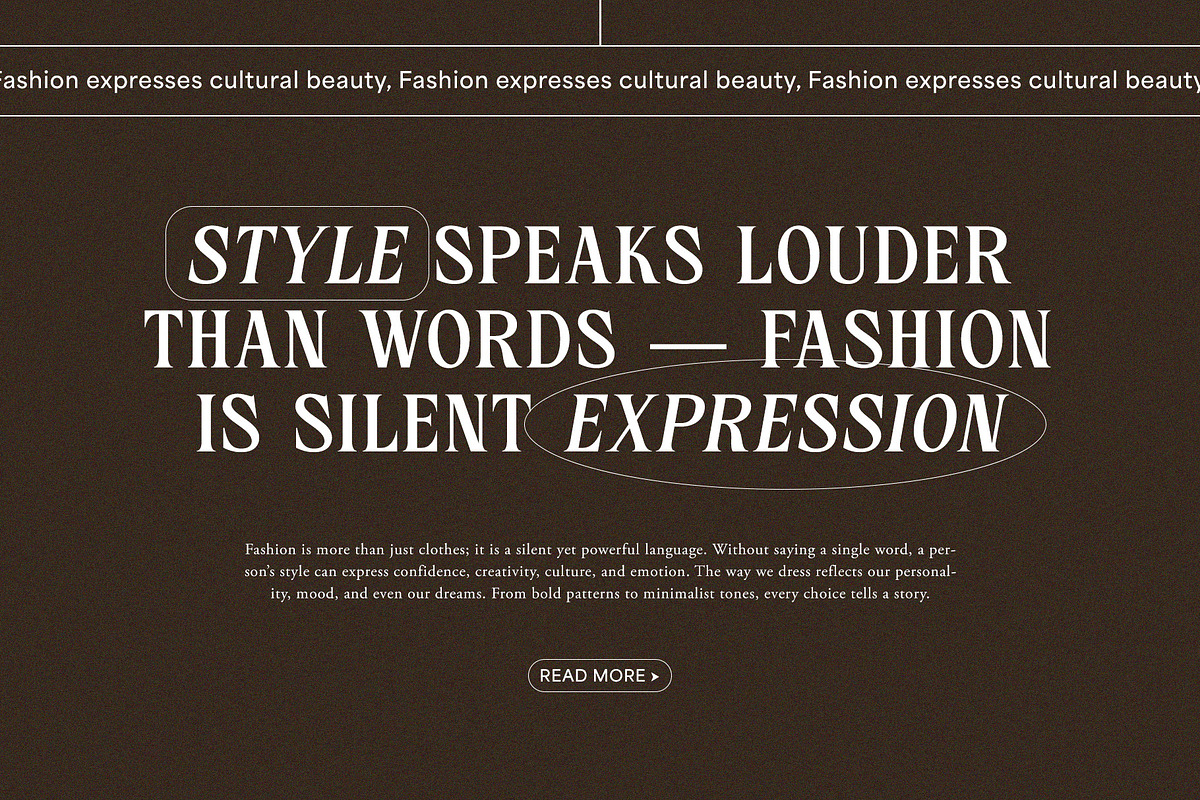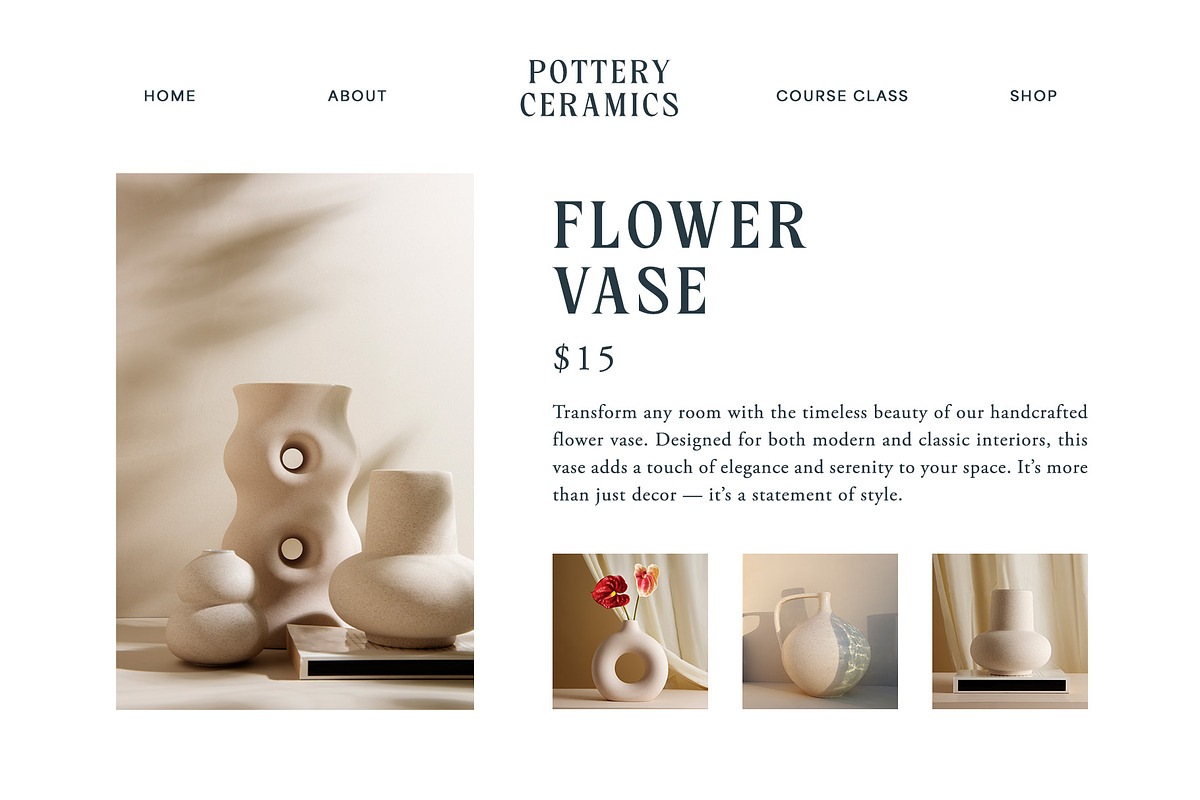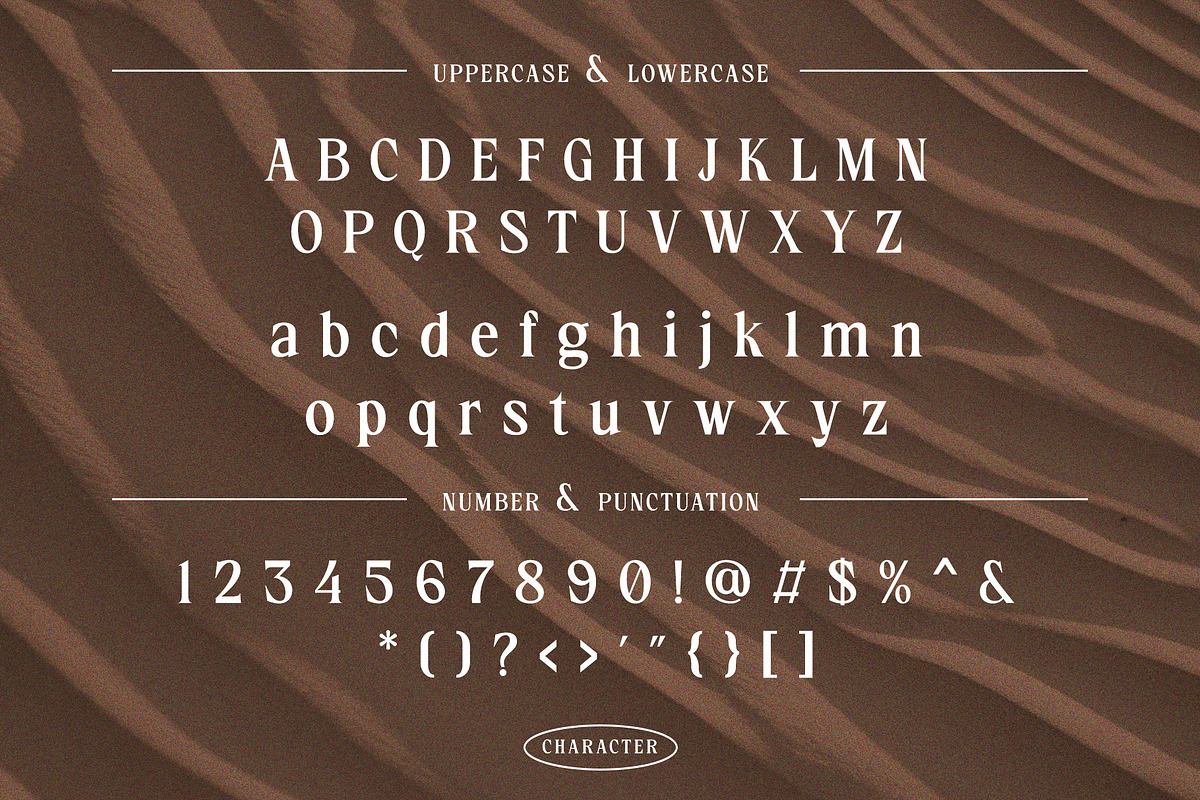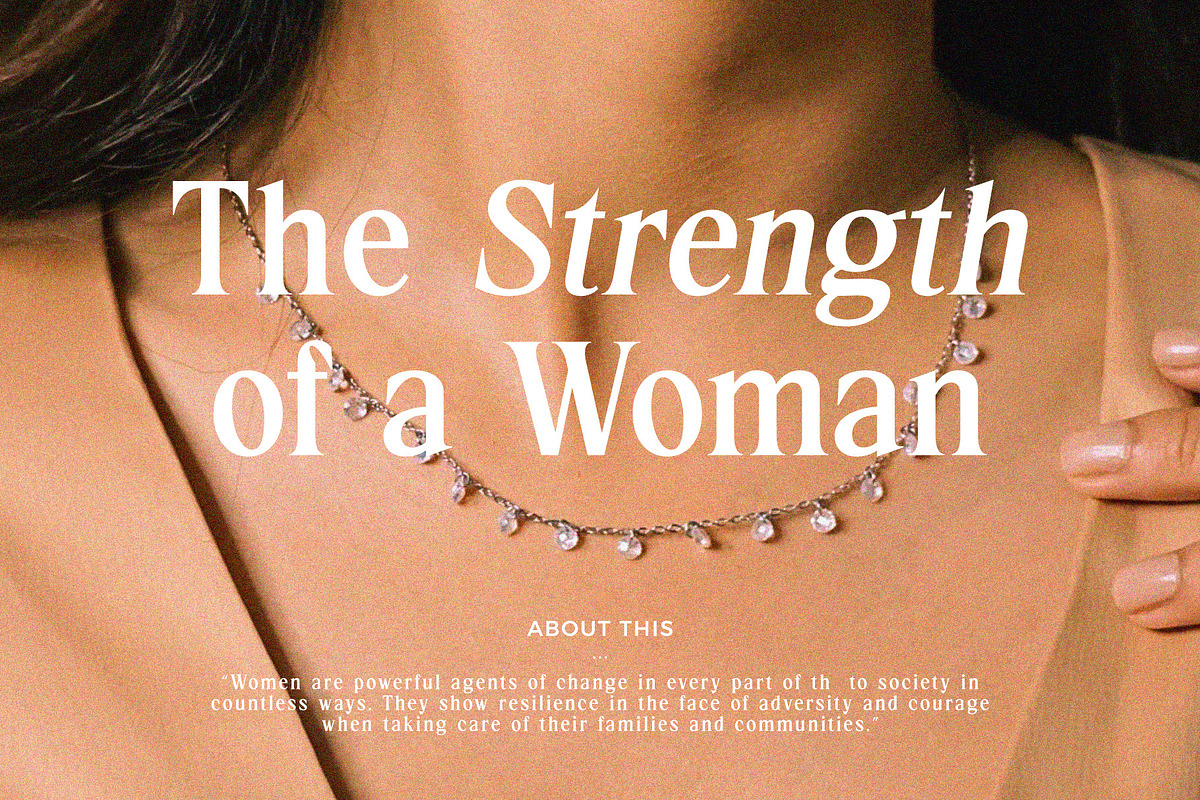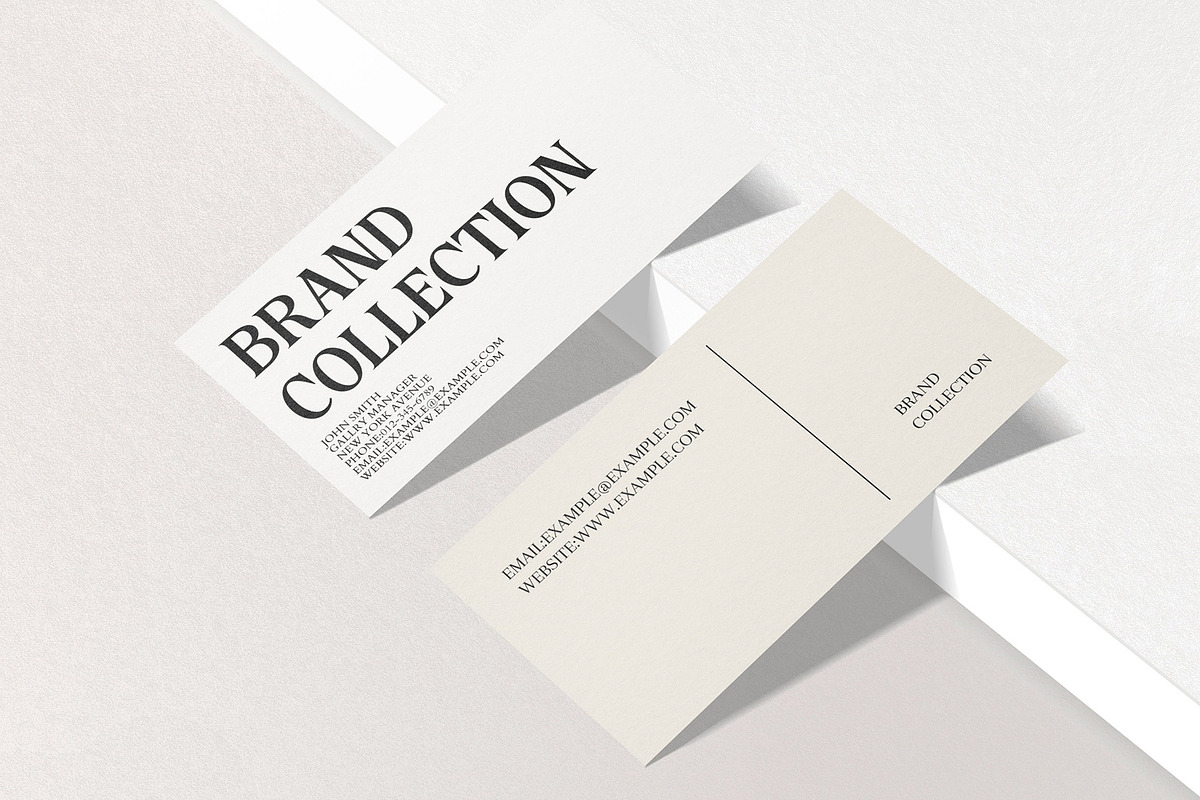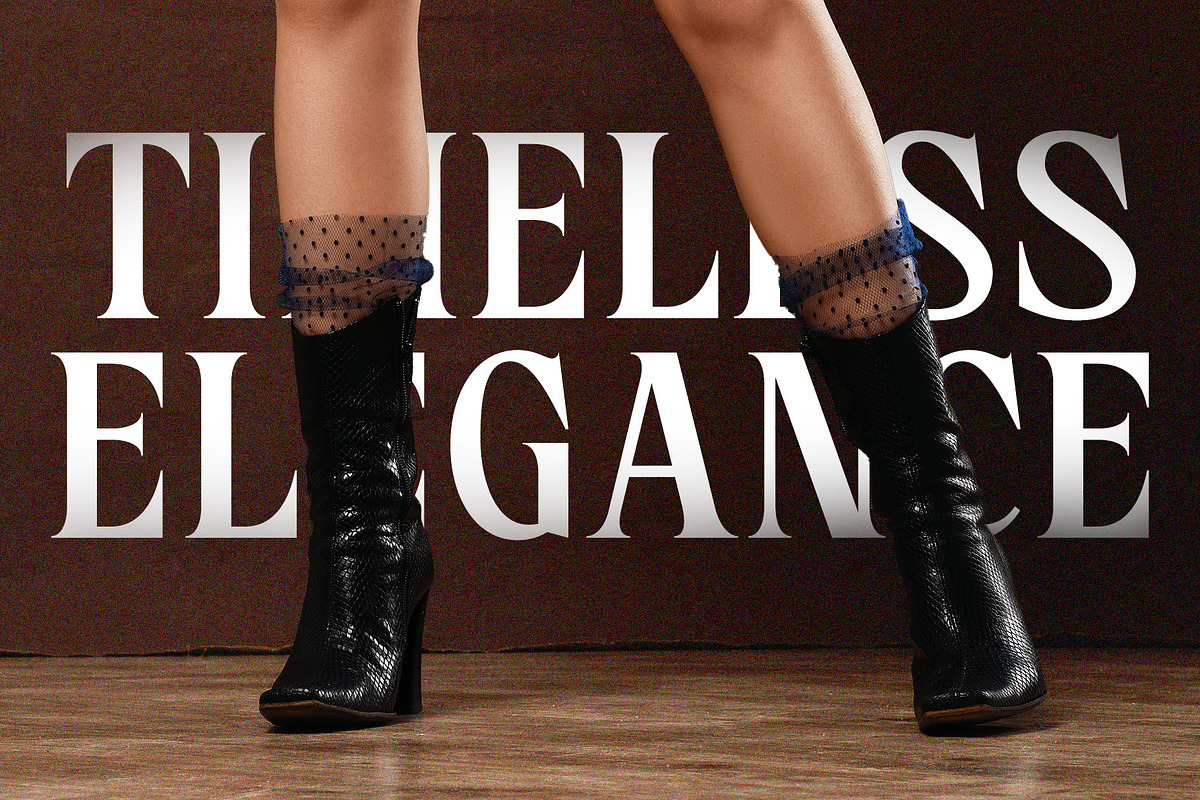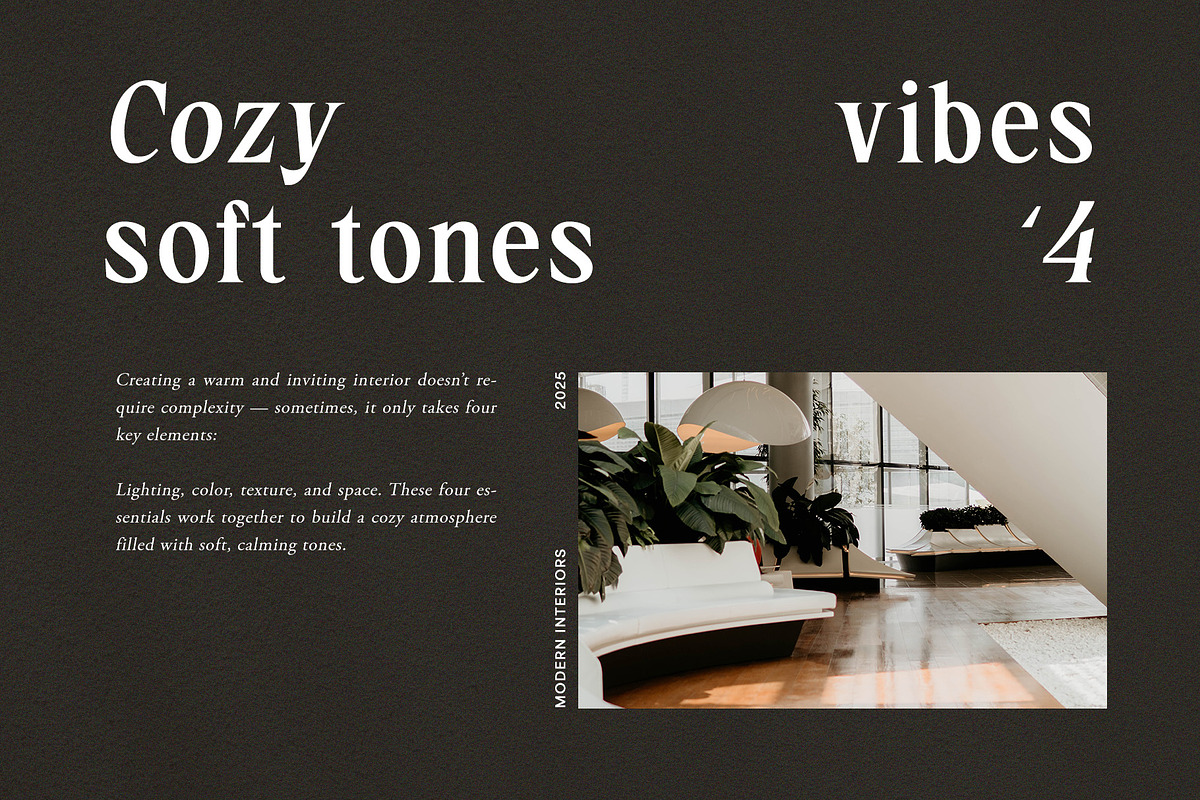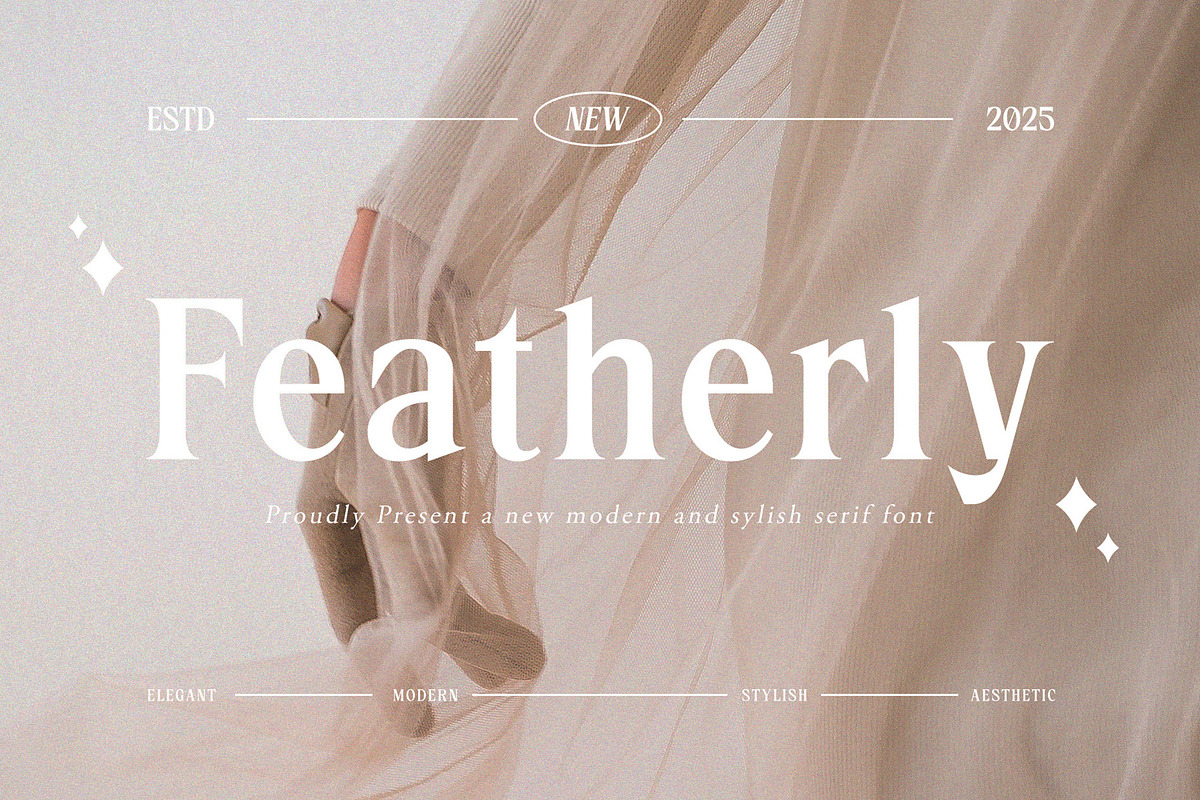
Featherly – Modern & Stylish Serif
Featherly is a refined modern serif font that blends grace and sophistication in every curve. Inspired by the lightness of feathers and the elegance of high fashion, Featherly delivers timeless charm and soft beauty to your visual projects. Ideal for branding, editorials, social media, packaging, and wedding designs, this font offers a perfect balance between classic and contemporary aesthetics. Elevate your typography with Featherly — where elegance meets modern design.